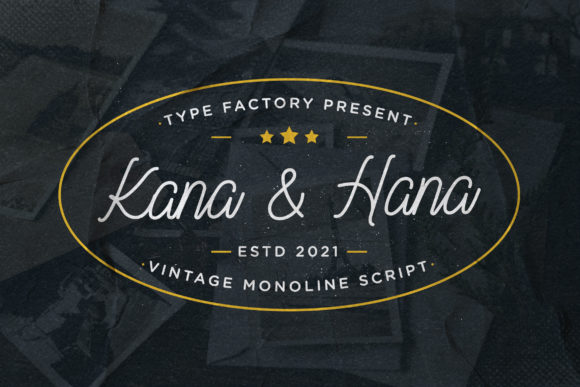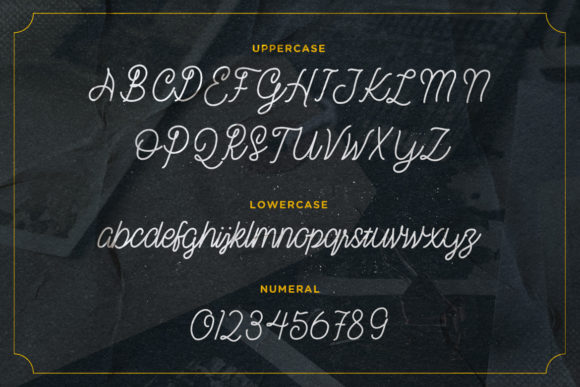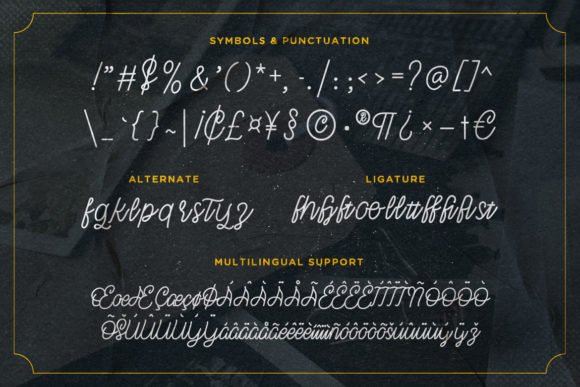
About Kana & Hana Font
Kana & Hana is a beautiful, well balanced and vintage styled script font. It is defined by smooth curves and is perfect for fashion branding or editorial designs. Add it confidently to your projects, and you will love the results.